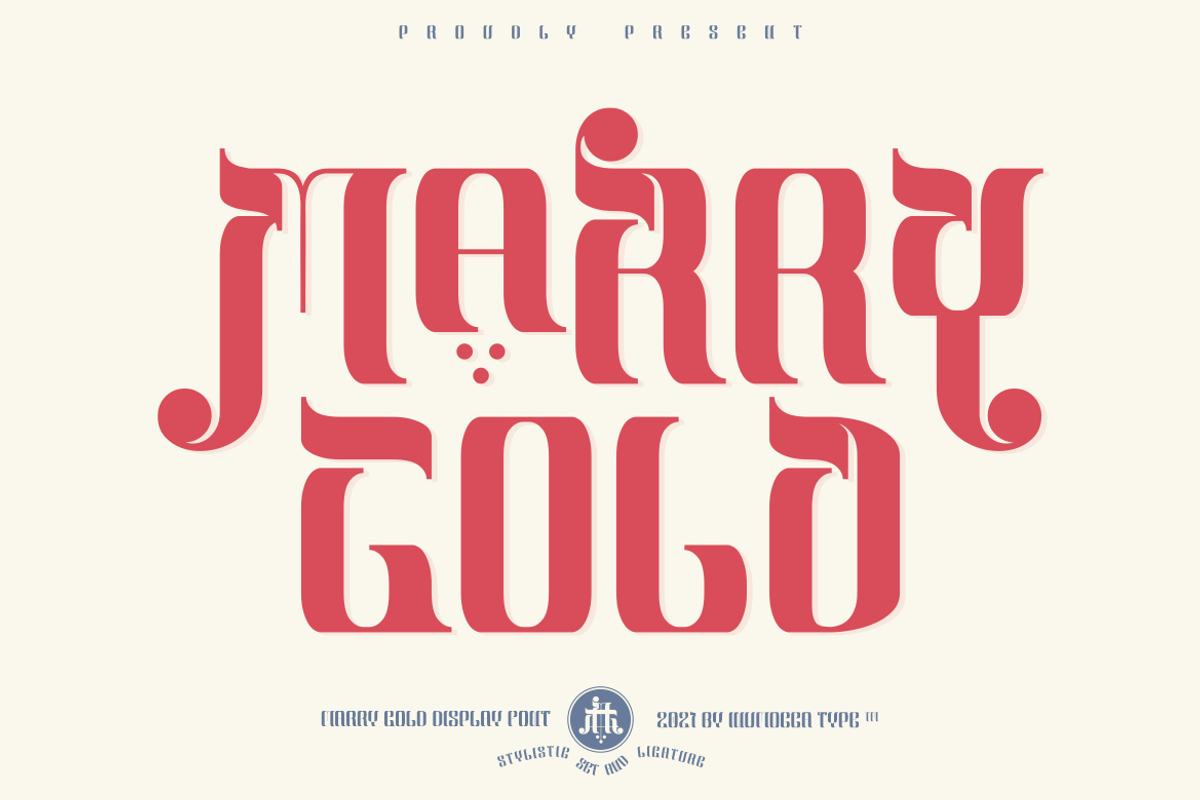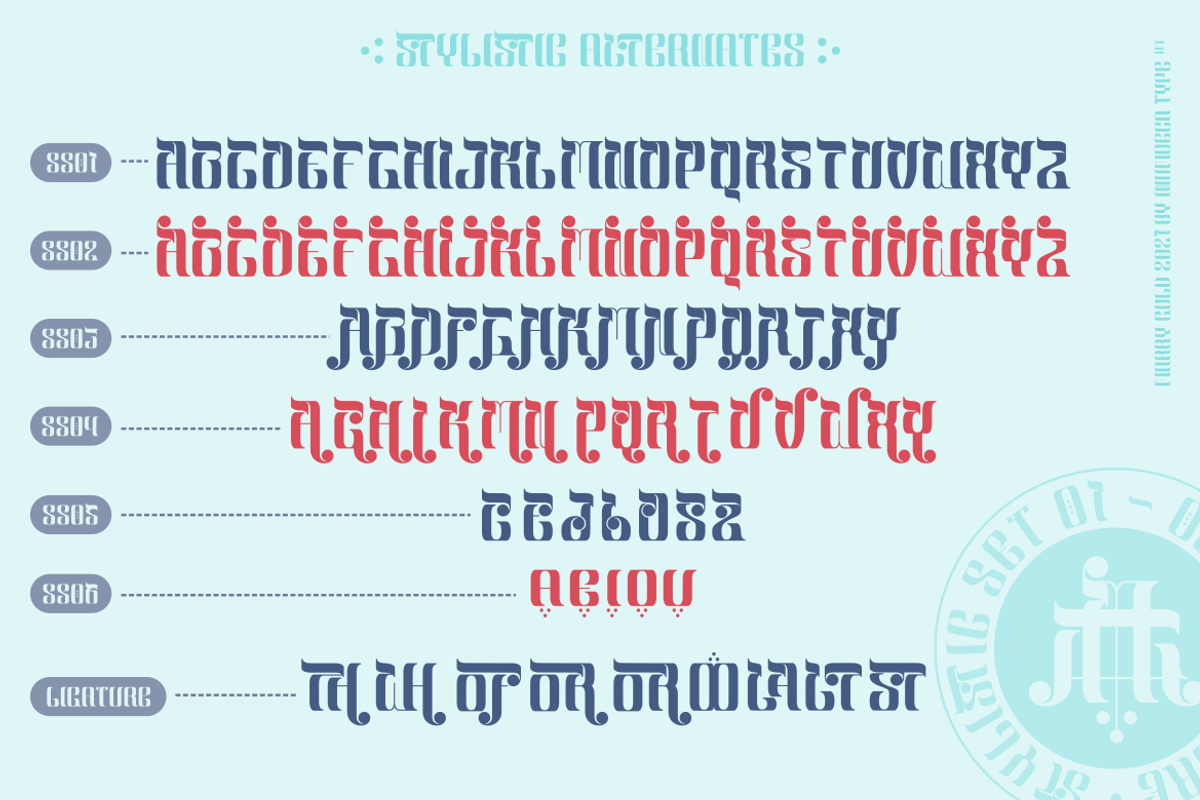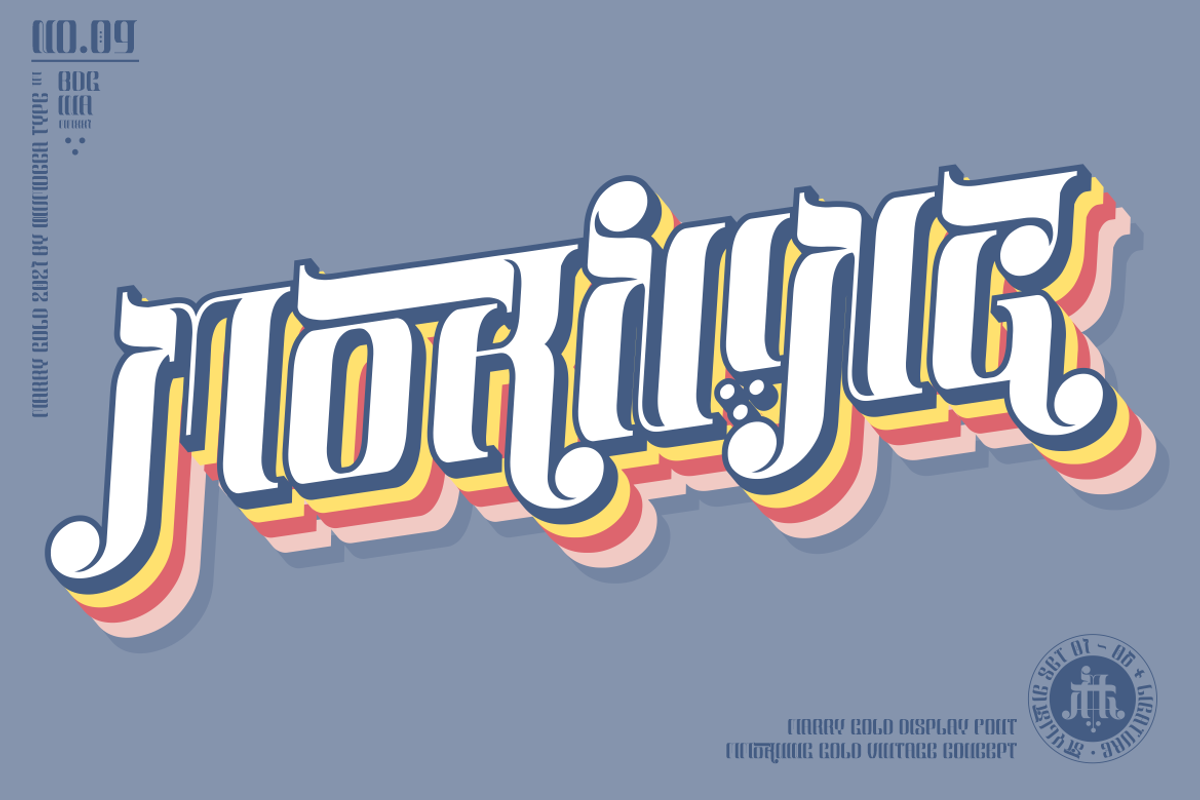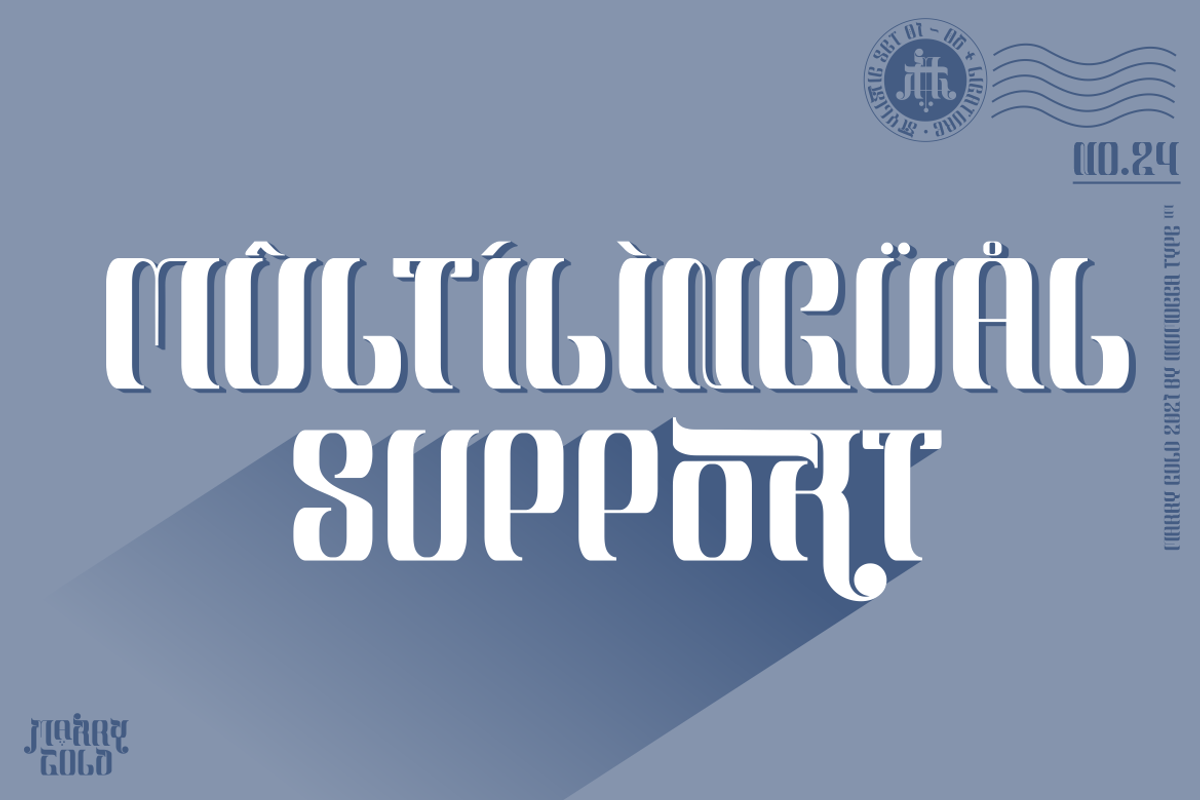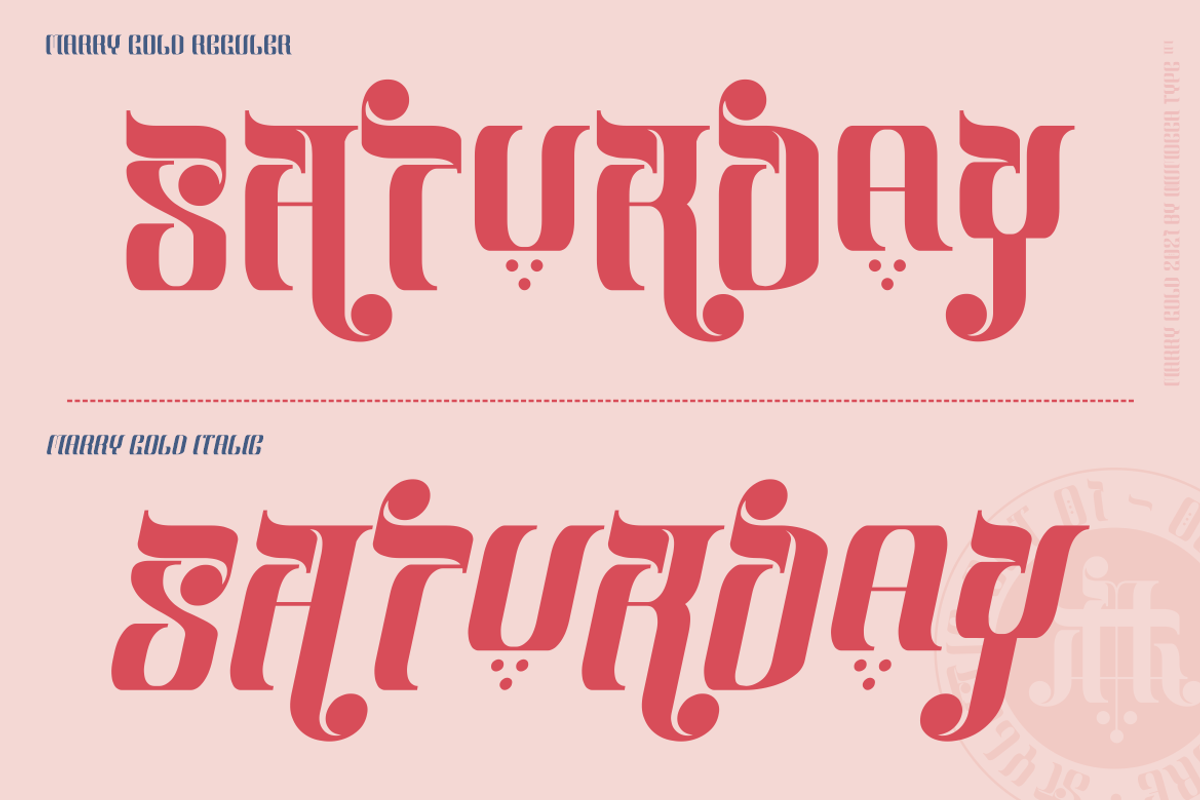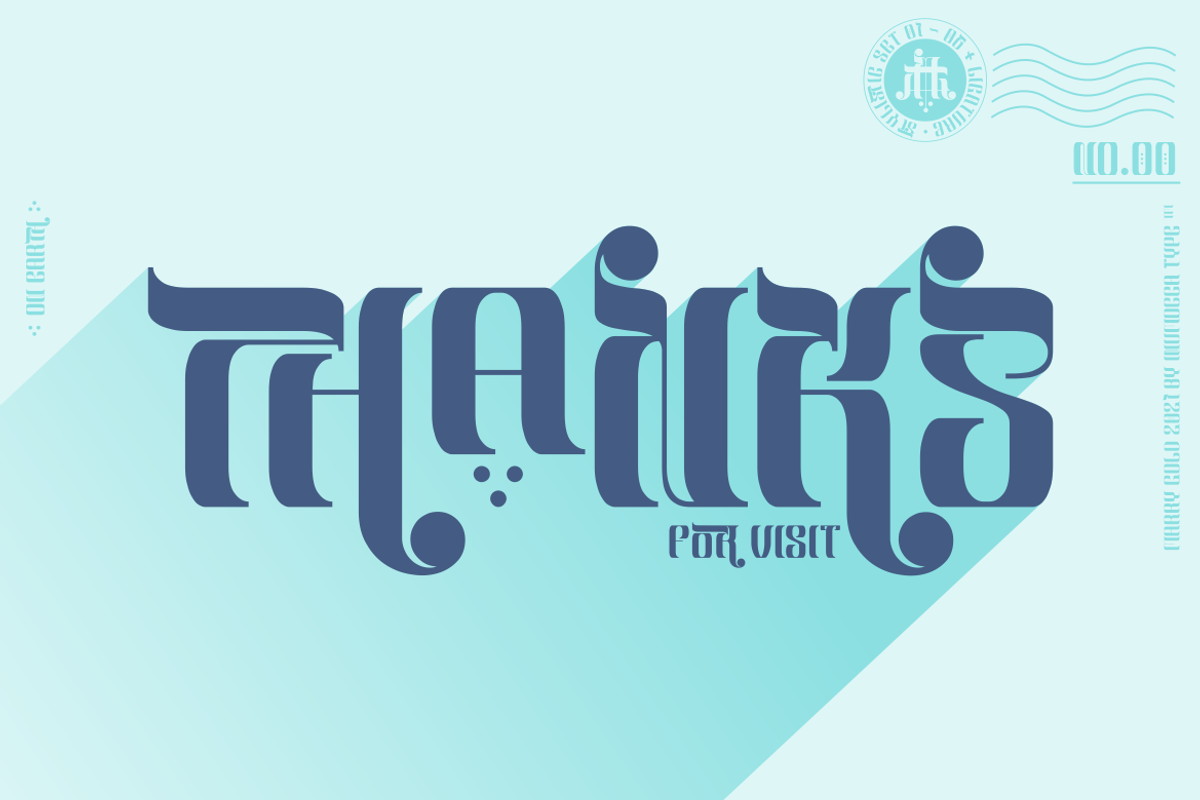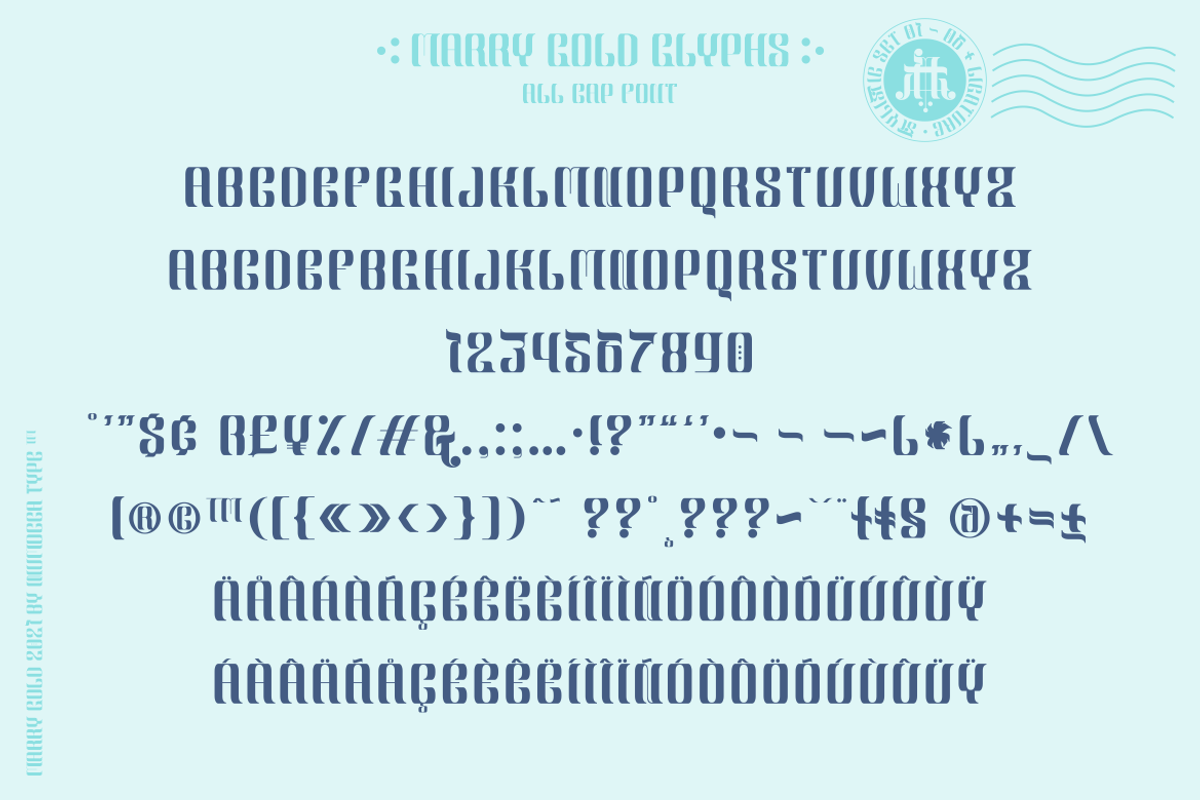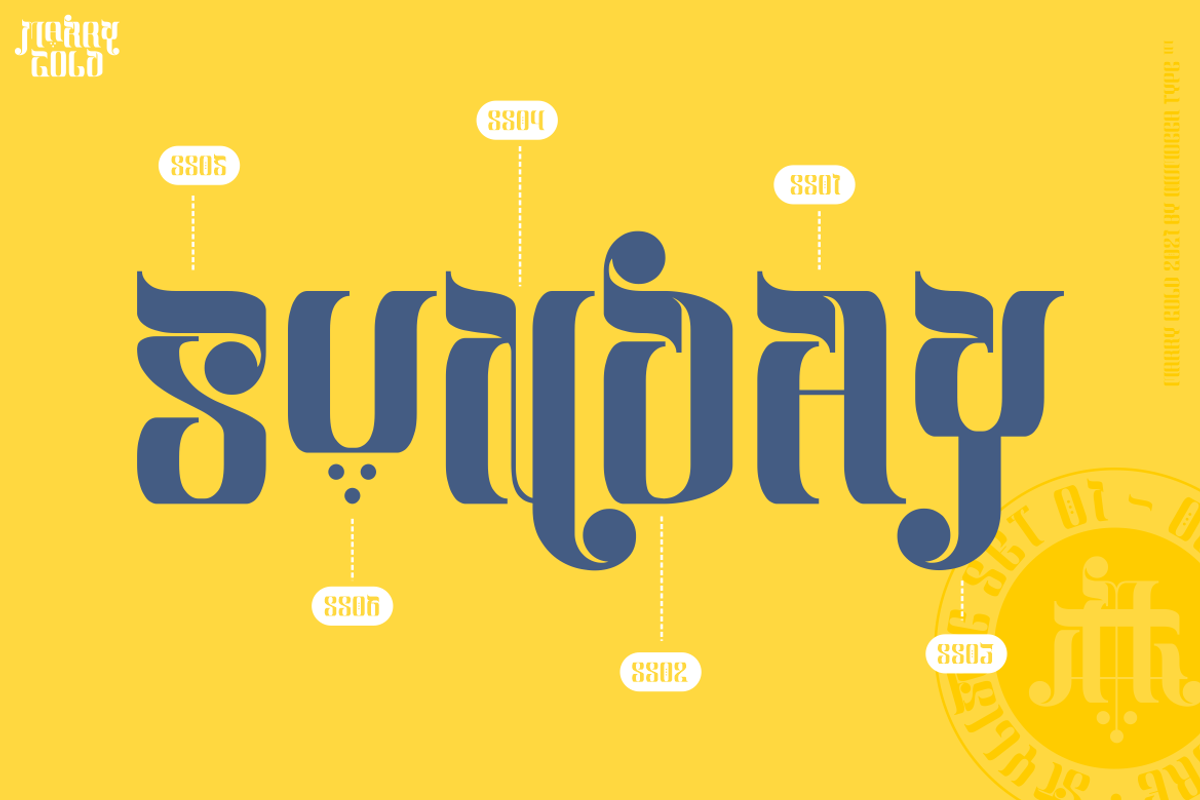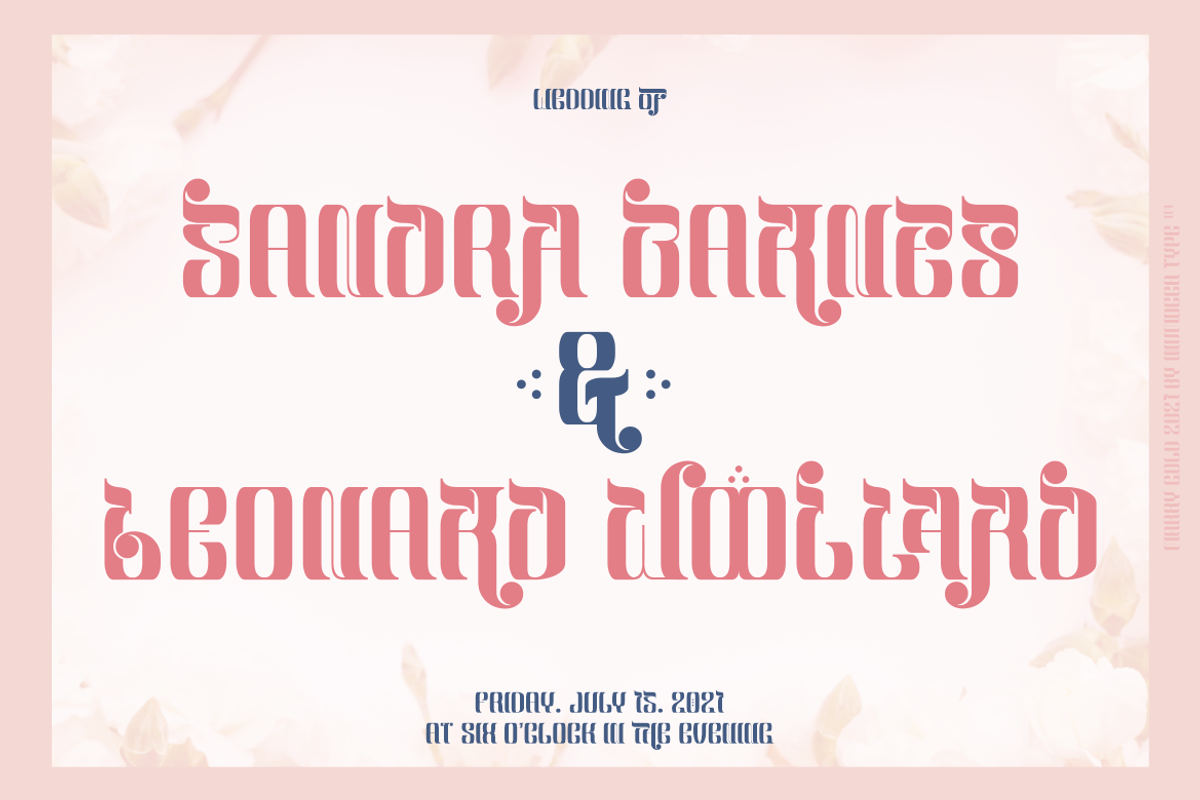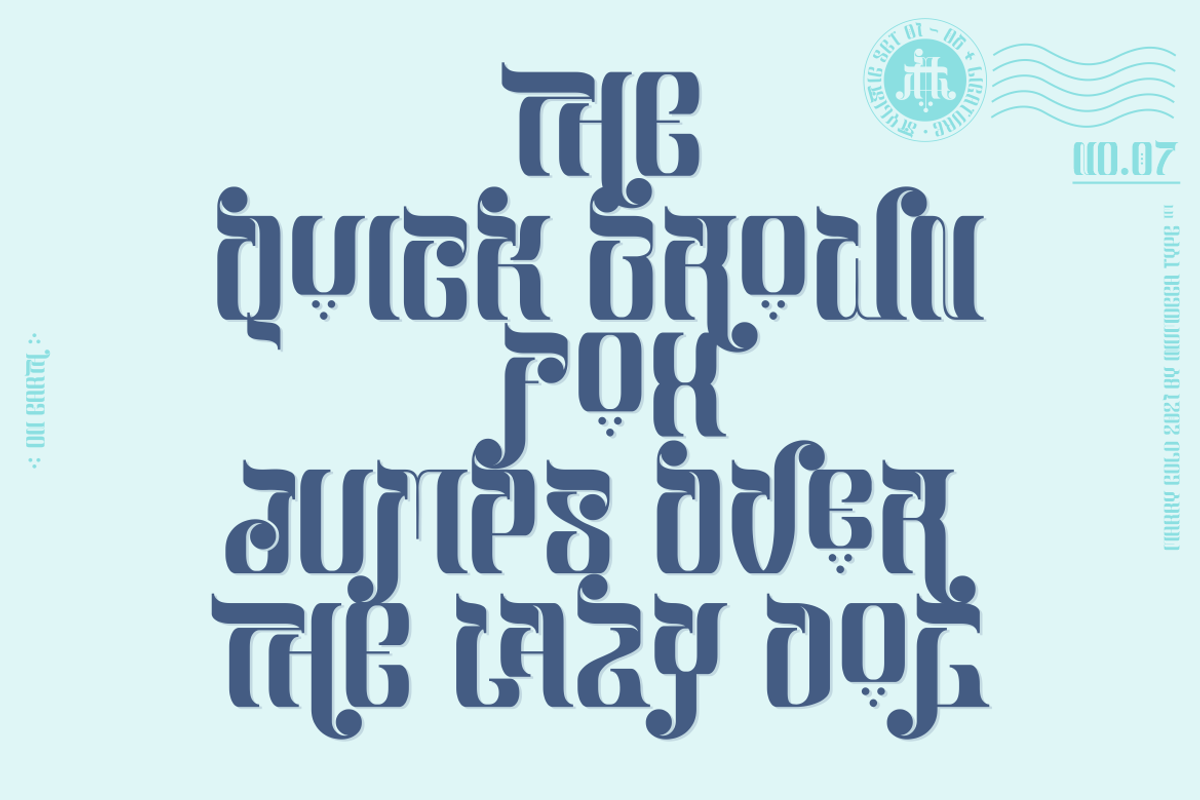
Marry Gold
MARRY GOLD is A Retro Display Typeface, Come from 70s Style. The Typeface comes with Stylistic Set and Ligature Combinations Exellent typeface to use for covering your Project, like Branding, Movie Title, Headline Letter, Bookcover or Book Content, Magazine cover, Poster, Quotes Lettering, Logos, and more your project design.
- Unique glyphs
- Multilingual Characters Support
- UPPERCASE
- Numeric
- Symbol
- Punctuation Character
- Stylistic Set (ss01 - ss06)